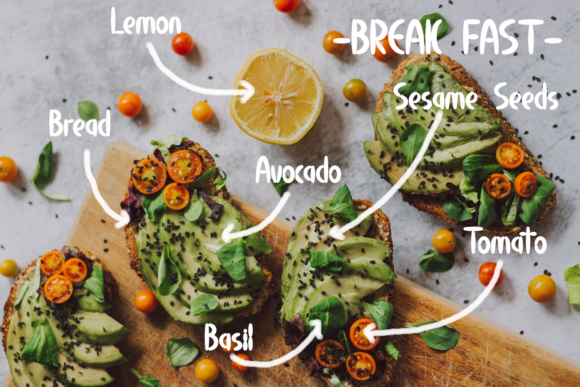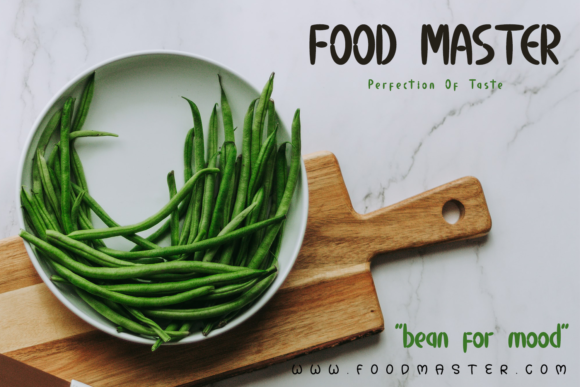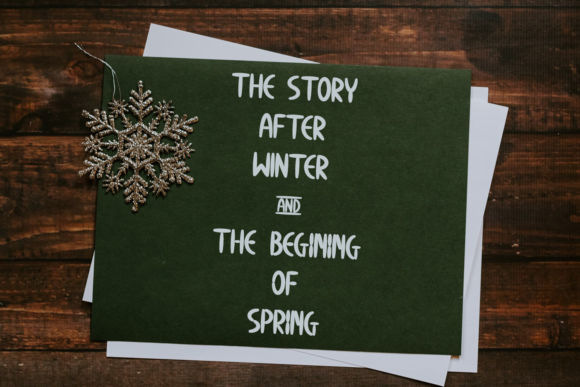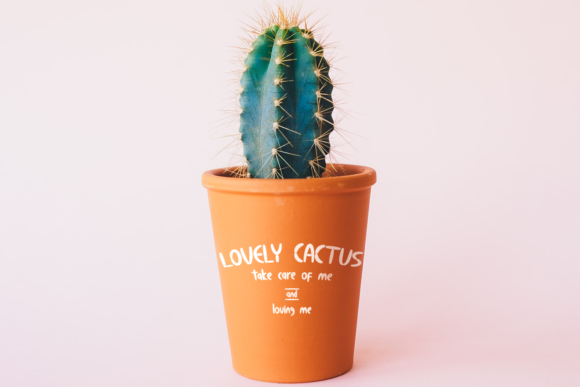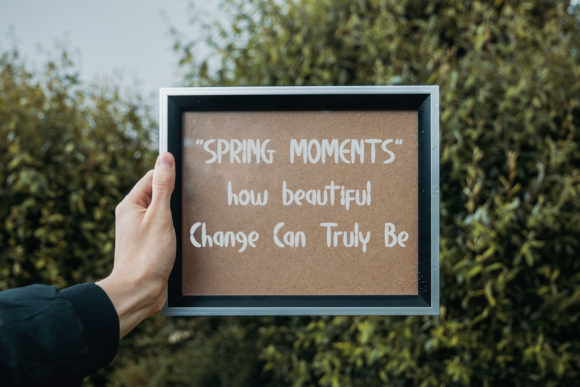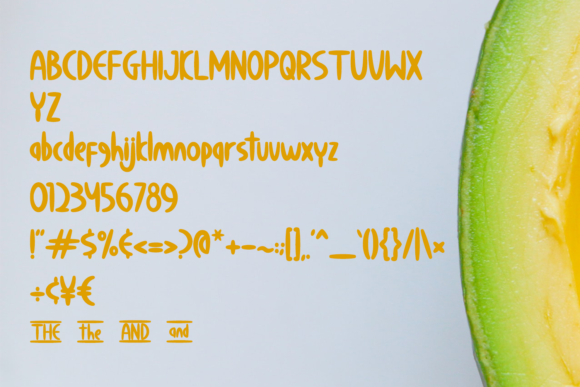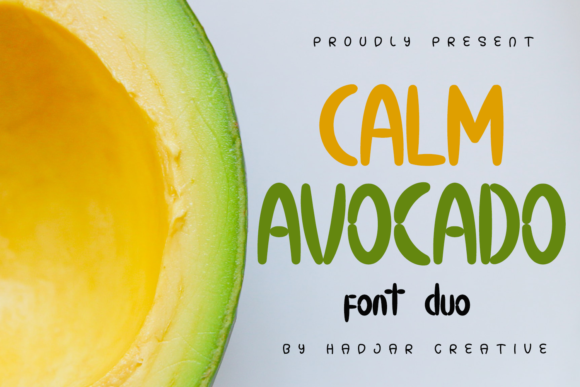
Introducing Calm Avocado Font: Elevate Your Designs with a Fun and Versatile Display Font
In the world of typography, a font can make or break a design. It’s the perfect blend of style, personality, and functionality that can elevate a creation from ordinary to extraordinary. If you’re a designer, crafter, or simply a creative enthusiast, you’re in luck! We’re excited to introduce you to the Calm Avocado Font, a fun and veritable display font that’s sure to become a valuable asset in your font library.
What is Calm Avocado Font?
Calm Avocado Font is a unique and eye-catching display font that’s perfect for a wide range of design projects. Its playful and laid-back vibe makes it an excellent choice for designs that require a touch of personality and whimsy. Whether you’re working on a branding project, a social media graphic, or a craft project, Calm Avocado Font is sure to add a dash of fun and creativity to your work.
Key Features of Calm Avocado Font
- Fun and playful design: Calm Avocado Font boasts a unique and quirky design that’s sure to grab attention.
- Versatile and adaptable: This font is perfect for a wide range of design projects, from branding and advertising to crafting and DIY projects.
- Easy to read: Despite its playful design, Calm Avocado Font is surprisingly easy to read, making it perfect for headlines, titles, and short paragraphs of text.
- High-quality and crisp: This font is designed to look great in any size, from large headlines to smaller body text.
Why Choose Calm Avocado Font?
So, why should you choose Calm Avocado Font for your next design project? Here are just a few reasons:
- Adds personality to your designs: Calm Avocado Font is the perfect way to add a touch of personality and whimsy to your designs.
- Elevates your brand: With its unique and eye-catching design, Calm Avocado Font can help elevate your brand and make it stand out from the crowd.
- Perfect for creative projects: Whether you’re working on a craft project, a DIY tutorial, or a creative writing project, Calm Avocado Font is the perfect choice.
How to Use Calm Avocado Font
Calm Avocado Font is incredibly easy to use, even if you’re new to design or typography. Here are a few tips to get you started:
- Use it as a headline font: Calm Avocado Font is perfect for headlines and titles, where its playful design can really shine.
- Pair it with other fonts: Try pairing Calm Avocado Font with other fonts to create a unique and eye-catching combination.
- Experiment with different sizes: Don’t be afraid to experiment with different sizes and styles to find the perfect look for your design.
In conclusion, Calm Avocado Font is a fun and veritable display font that’s sure to become a valuable asset in your font library. Its playful and laid-back vibe makes it perfect for a wide range of design projects, from branding and advertising to crafting and DIY projects. With its unique and eye-catching design, ease of use, and versatility, Calm Avocado Font is the perfect choice for designers, crafters, and creative enthusiasts alike.